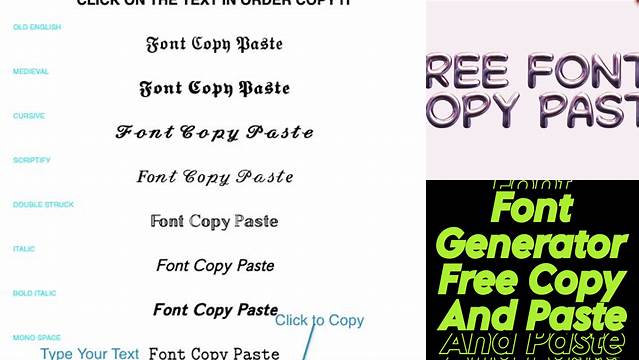
Free Font Copy Paste: Style Text Anywhere!
Hey guys! Ever stumbled upon some amazing text styles online and wished you could use them in your own posts, comments, or projects? Well, you're in luck! In this article, we're diving deep into the world of free font copy paste, exploring everything from what it is and how it works, to where you can find the coolest fonts and how to use them effectively. Get ready to level up your text game!
What is Free Font Copy Paste?
Let's kick things off with the basics. What exactly is free font copy paste? Essentially, it's a method of using special characters and symbols to mimic the appearance of different fonts without actually installing any new fonts on your computer or device. This technique is super handy because it allows you to create visually appealing text for social media, messaging apps, documents, and more, without the hassle of downloading and managing font files.
The magic behind free font copy paste lies in Unicode, a universal character encoding standard that includes a vast range of symbols, letters, and glyphs. By combining these Unicode characters in clever ways, websites and tools can generate text that looks like it's in a fancy font. When you copy and paste this text, you're not actually transferring a font file, but rather the specific combination of Unicode characters that create the desired style. Think of it like a secret code that your computer can read and display!
The beauty of this approach is its versatility. Since you're working with Unicode characters, the stylized text should be visible on virtually any device or platform that supports Unicode, which is pretty much everything these days. This means you can create a stunning Instagram bio on your phone, copy it, and paste it into a Word document on your computer without losing the style. Cool, right? Free font copy paste opens up a world of creative possibilities for anyone looking to add a unique touch to their text.
Why Use Free Font Copy Paste?
Now, you might be wondering, why bother with free font copy paste when you could just download and install actual fonts? That's a fair question! There are several compelling reasons why this technique is so popular, especially for online use. First and foremost, it's incredibly convenient. As we touched on earlier, you don't need to download or install anything. This saves you time, storage space, and the potential headache of managing font files. Plus, it eliminates the risk of compatibility issues, as the stylized text will generally display correctly across different devices and platforms.
Another big advantage is accessibility. Not everyone has the technical skills or permissions to install custom fonts on their devices. Free font copy paste provides a workaround, allowing anyone to use stylish text regardless of their technical expertise. This is particularly useful for social media, where you want your content to stand out without requiring your followers to download anything special. Imagine creating a bold and eye-catching header for your Facebook post or crafting a whimsical tweet with a unique font – all without installing a single font file!
Free font copy paste is also a fantastic option for creating a consistent brand aesthetic across various online platforms. You can use the same stylized text in your Instagram bio, Twitter profile, YouTube channel description, and more, ensuring a cohesive and professional look. This is especially important for businesses and creators who want to build a recognizable brand identity. By using consistent text styles, you can reinforce your brand message and make a lasting impression on your audience. So, whether you're looking to spice up your personal social media or enhance your professional branding, free font copy paste is a powerful tool to have in your arsenal.
Where to Find Free Font Copy Paste Tools
Alright, you're sold on the idea of free font copy paste, but where do you actually find these magical text transformations? The good news is, there are tons of online tools and websites dedicated to generating stylish text from Unicode characters. These tools typically offer a wide variety of font styles, from bold and italic to cursive, gothic, and even bubble letters. Finding the perfect font for your needs is just a few clicks away!
One of the most popular options is dedicated font generator websites. These sites usually have a simple interface where you can type your text, browse through different font styles, and then copy the generated text to your clipboard. Some of these tools even allow you to customize the text further, such as adjusting the size, color, or adding special effects. It's like having a personal font stylist at your fingertips! Examples of well-regarded font generator websites include LingoJam, Cool Symbol, and YayText. These platforms offer a plethora of font styles and customization options, ensuring you'll find the perfect fit for any project.
Another great resource is social media font generators. These tools are specifically designed to create stylish text for platforms like Instagram, Twitter, and Facebook. They often include pre-designed templates and layouts, making it even easier to create eye-catching posts and profiles. Social media font generators can be a game-changer for anyone looking to boost their online presence. By using these tools, you can create text that stands out from the crowd and grabs attention. This is crucial in today's competitive social media landscape, where everyone is vying for eyeballs.
Don't forget about browser extensions! There are several browser extensions available that add free font copy paste functionality directly to your web browser. These extensions can be super convenient, as they allow you to generate stylized text without leaving the page you're on. Simply highlight the text you want to transform, click the extension icon, and choose your desired font style. It's a seamless and efficient way to add flair to your text on the fly. Whether you're crafting a witty comment on a blog post or composing an email with a touch of personality, browser extensions make free font copy paste a breeze. So, explore the various options out there and find the tools that best suit your workflow and creative needs. With so many resources available, you'll be a font-styling pro in no time!
When pasting text into a text editor or document, use the "paste as plain text" option if possible. This will remove any underlying formatting and ensure that the text inherits the formatting of the document you're pasting into. This can help prevent unexpected formatting issues and ensure consistency across your document. The